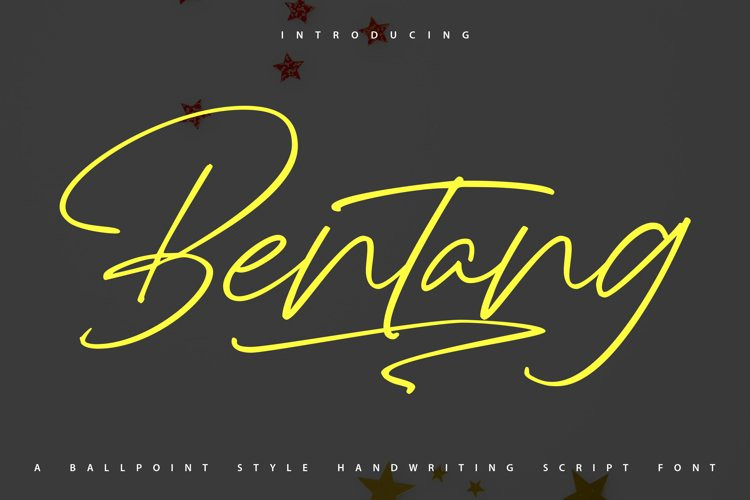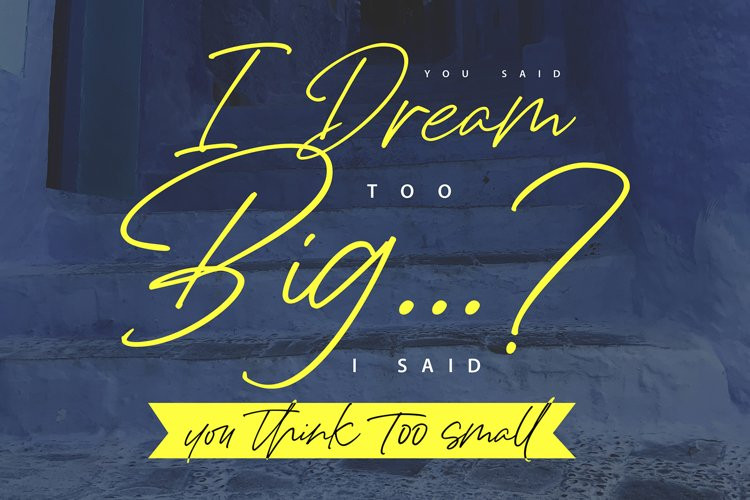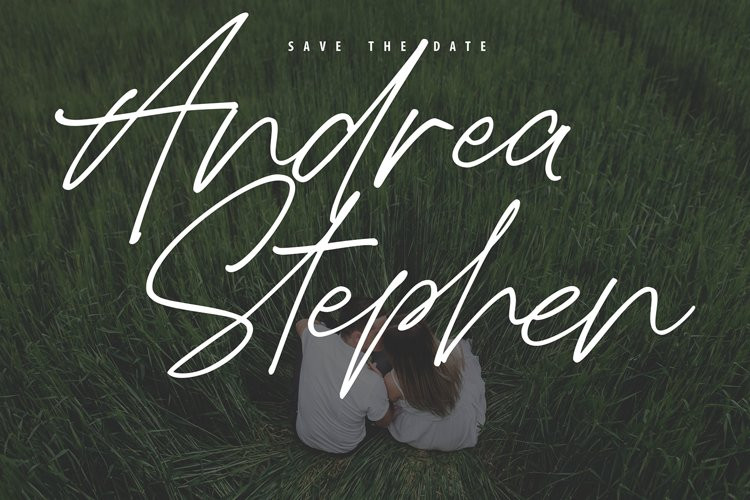
Bentang Font
Bentang FontBentang | Handwriting Script Font with a calligraphy style, So beautiful on invitation like greeting cards, branding materials, business cards, quotes, posters, and more!